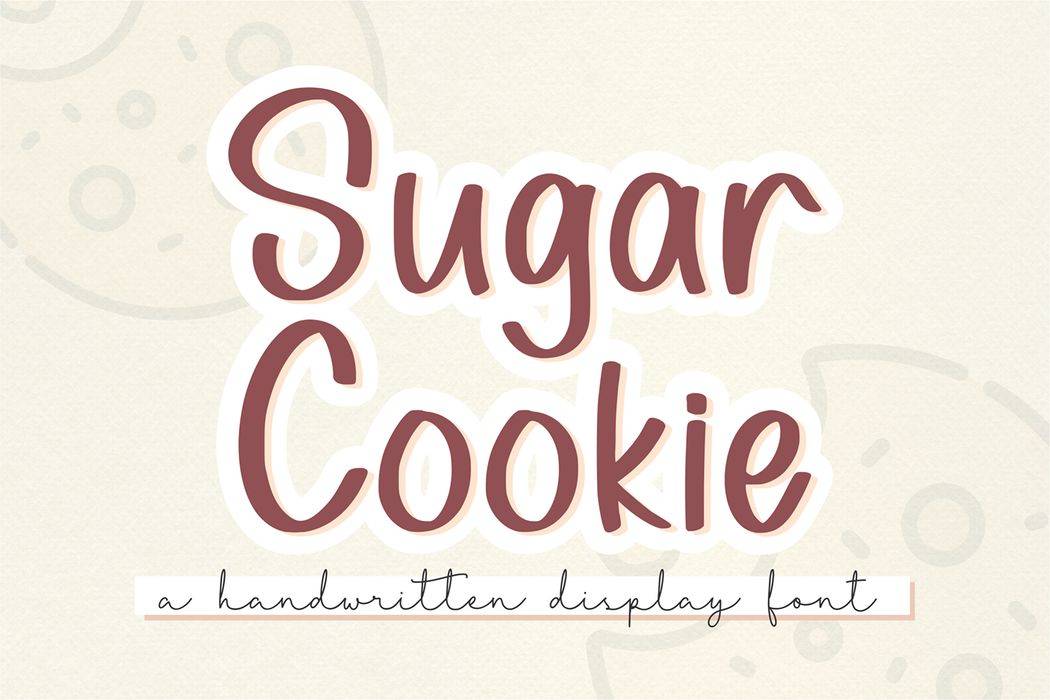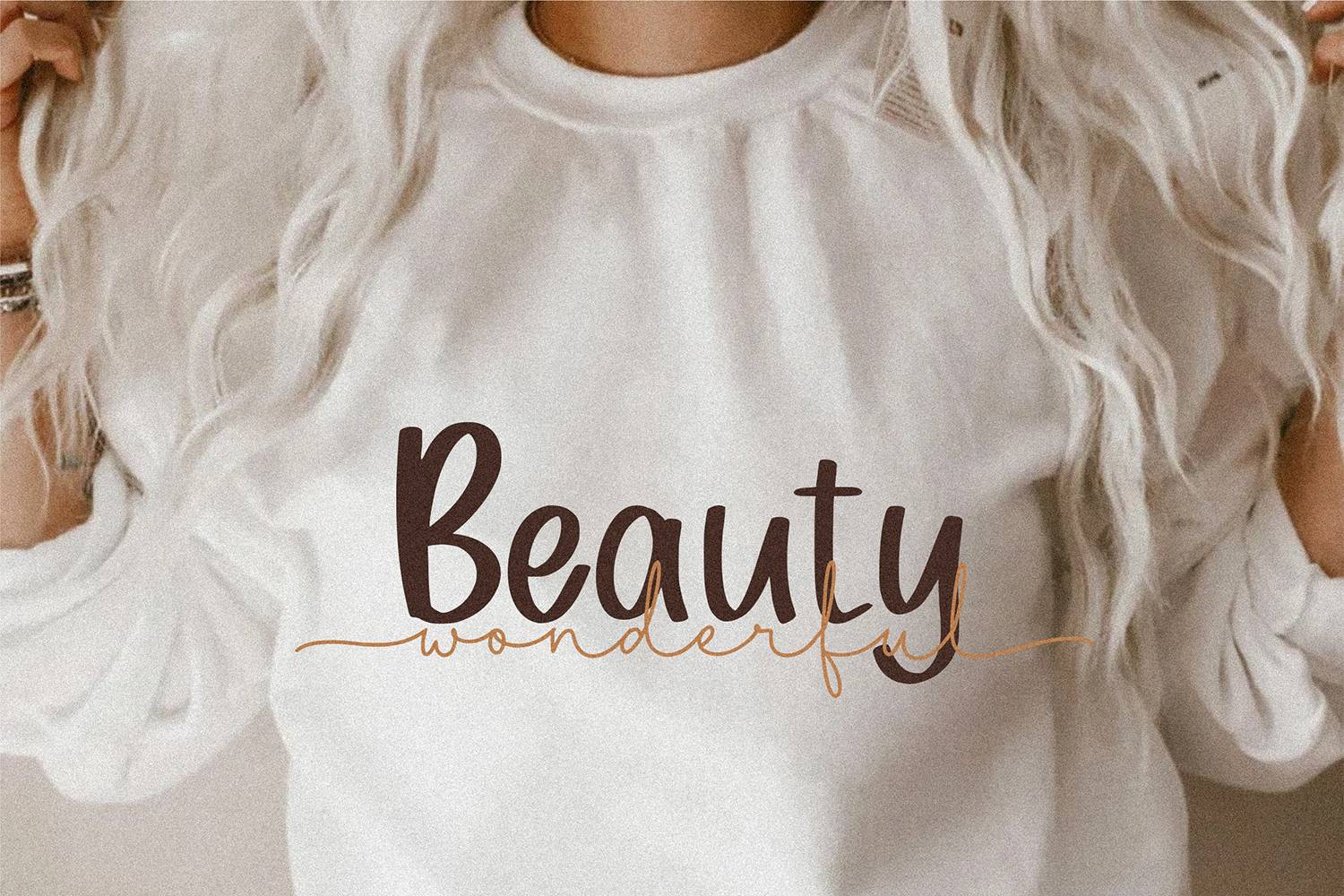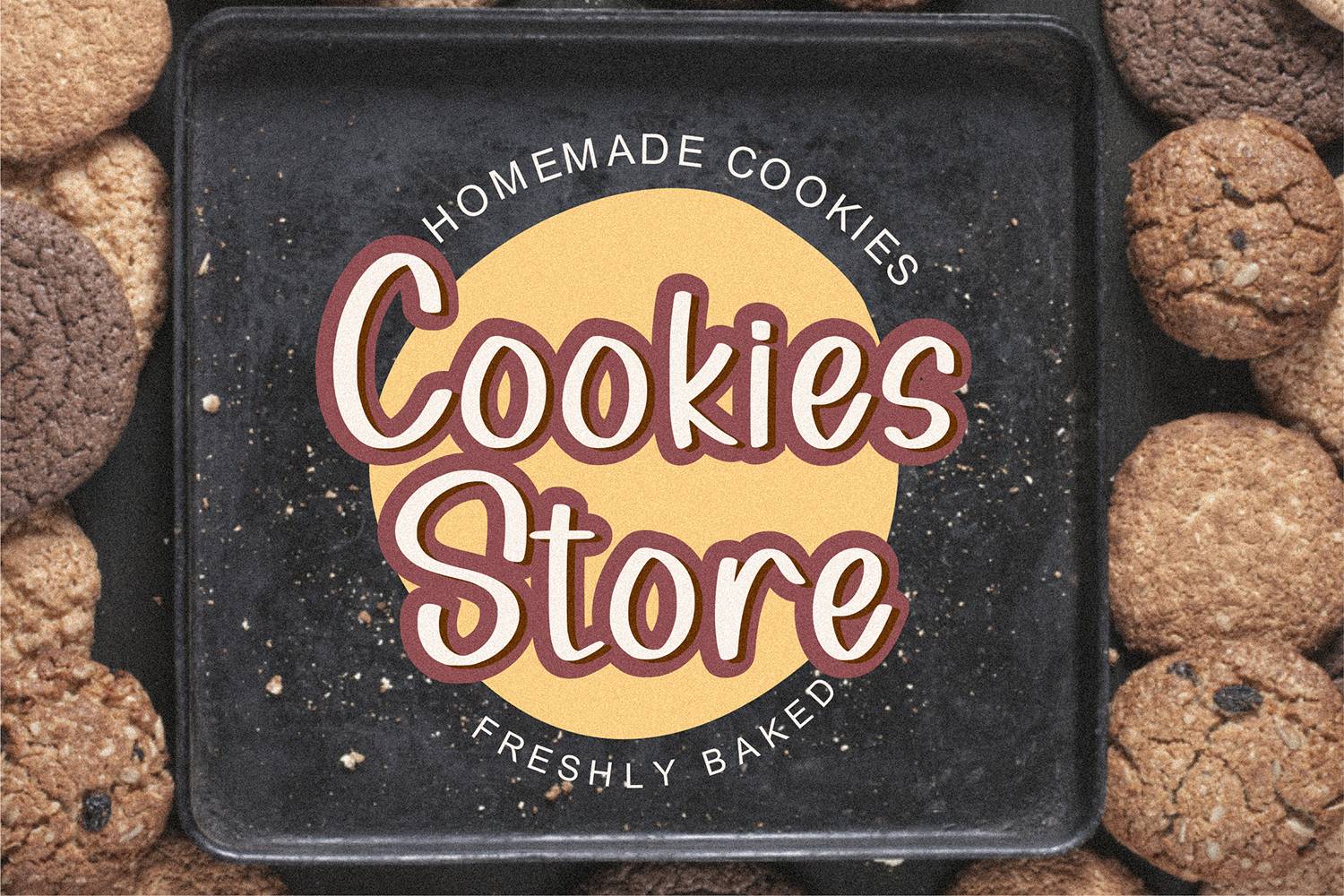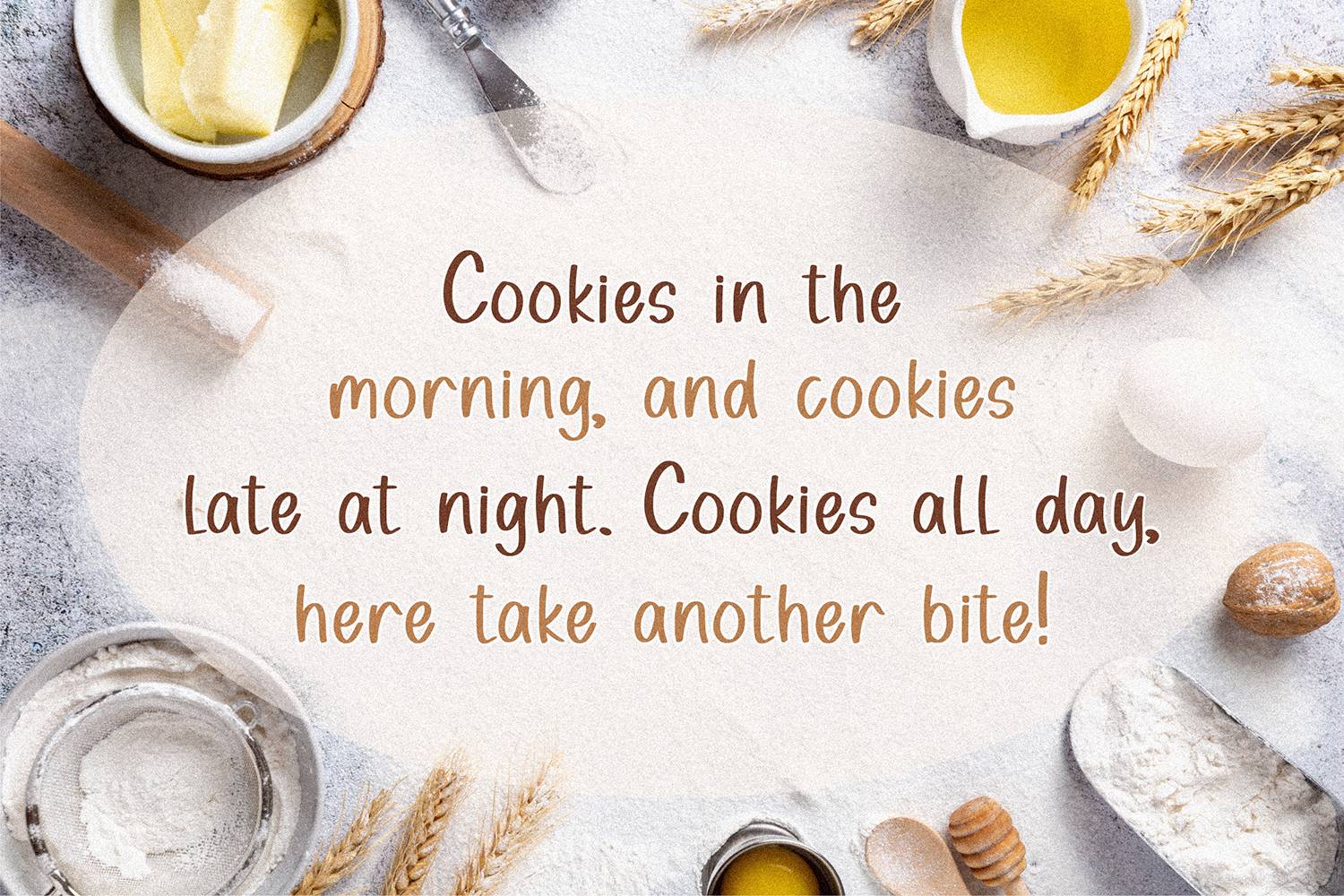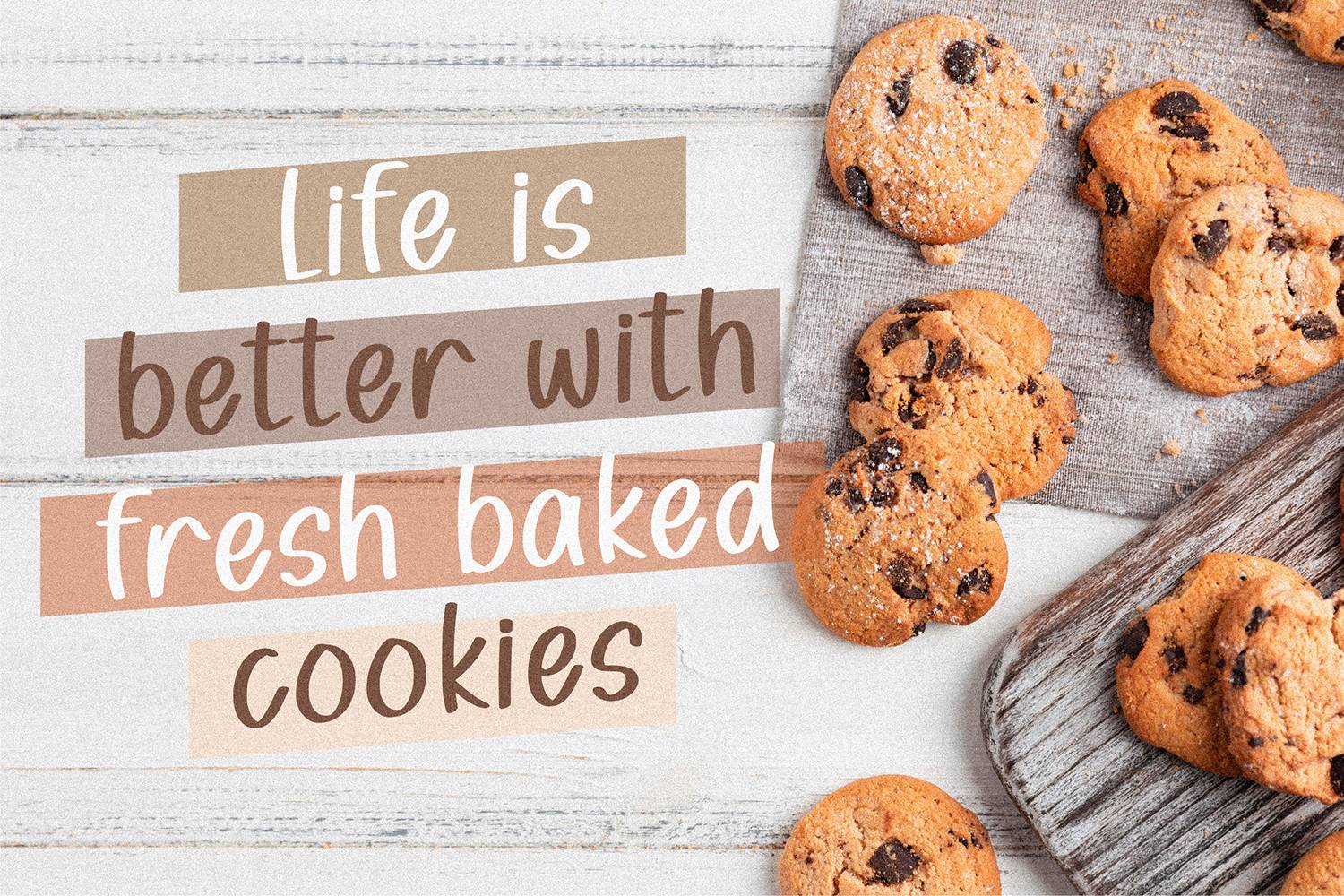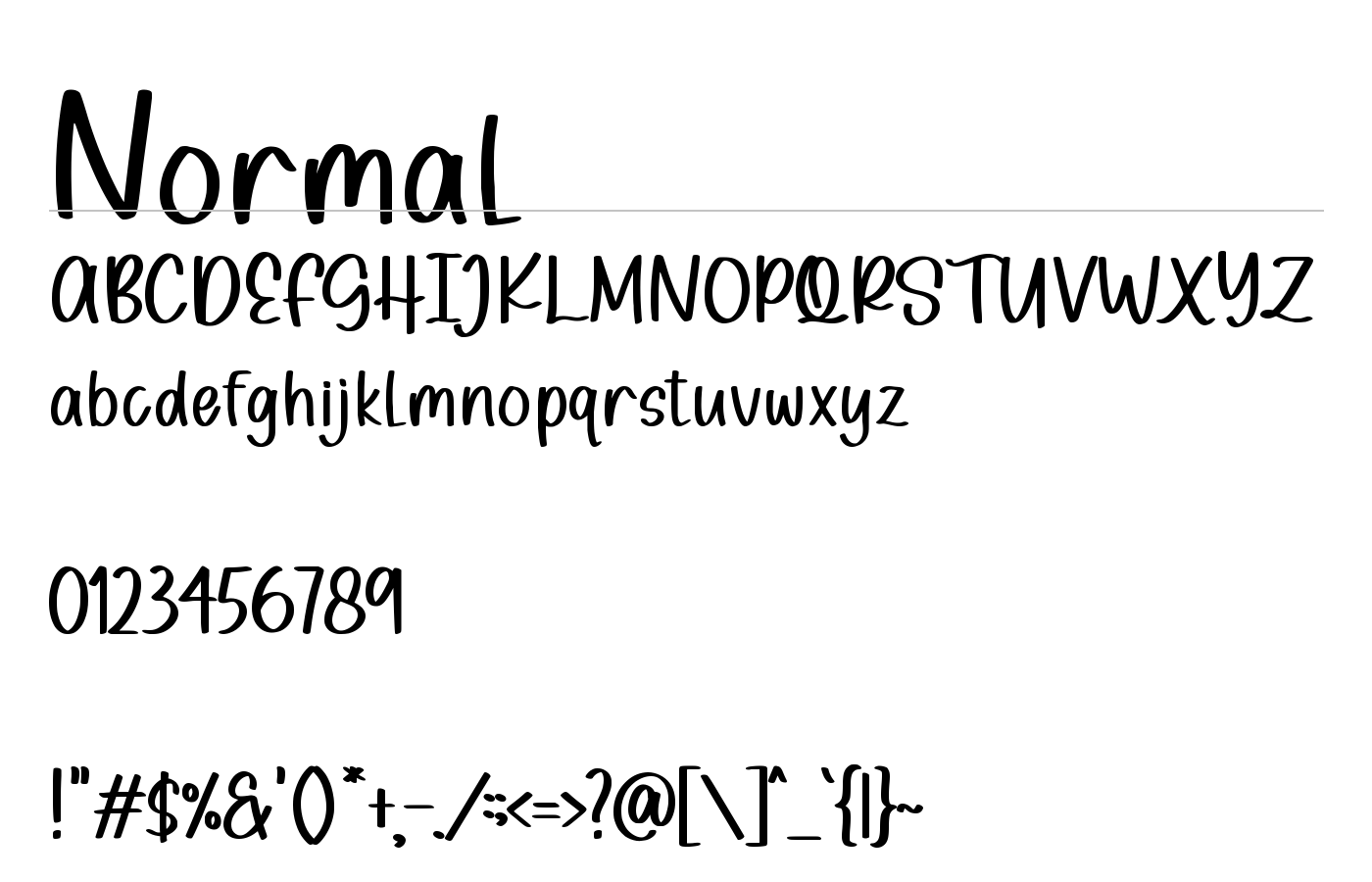
Sugar Cookie Font is a playful, handwritten sans serif with a casual and friendly vibe, characterized by its tall, slightly condensed letterforms and smooth, organic strokes. Its informal style makes it ideal for creative projects, children’s content, and branding that seeks a cheerful, approachable look. This font works well in headlines, invitations, and packaging where a personal, warm touch is desired.
Sugar Cookie Font